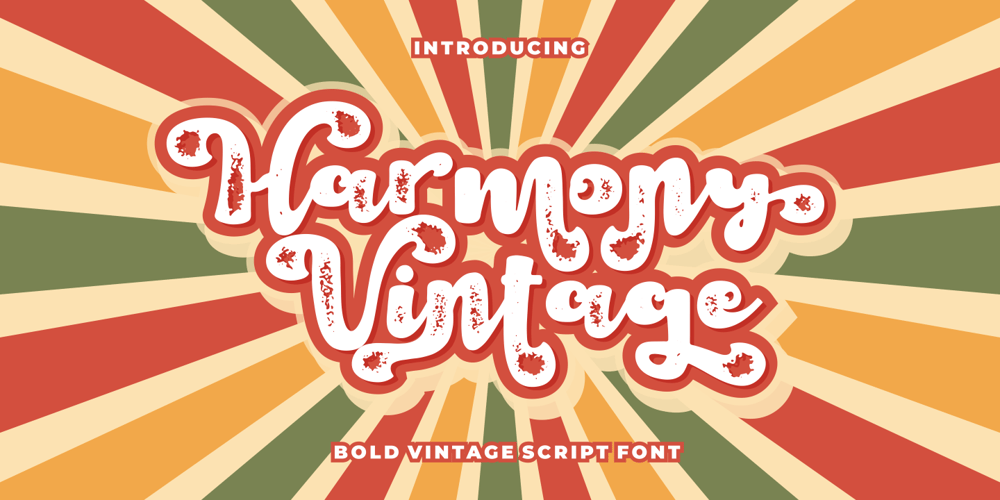
Harmony Vintage
Harmony Vintage font
Harmony Vintage Font Family was designed by Putra Novembria Candra Kusuma and published by Putracetol. Harmony Vintage contains 2 styles and family package options. Harmony Vintage is a bold vintage script font. In this font I try to combine vintage with luxury/aesthetics. So that this font can be used in various projects with retro/vintage and luxury themes. Such as logos, branding, posters, packaging, book covers, clothes/apparel, quotes, titles and others. This font come with clean and rough font version.Come with Opentype feature with a lot of alternates, its help you to make great lettering. This font is also support multi language.To access the alternate glyphs, you need a program that supports OpenType features such as Adobe Illustrator CS, Adobe Photoshop CC, Adobe Indesign and Corel Draw.